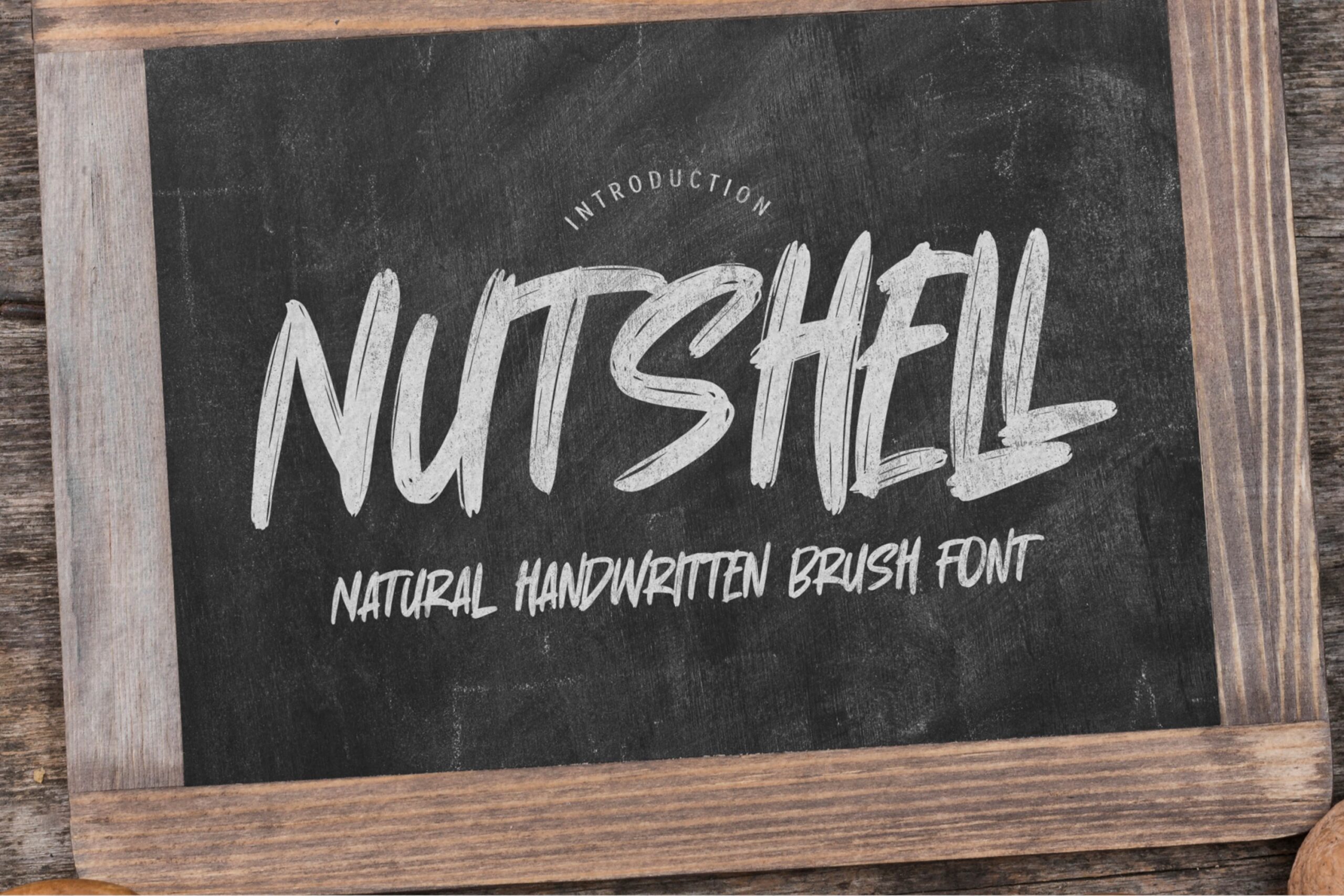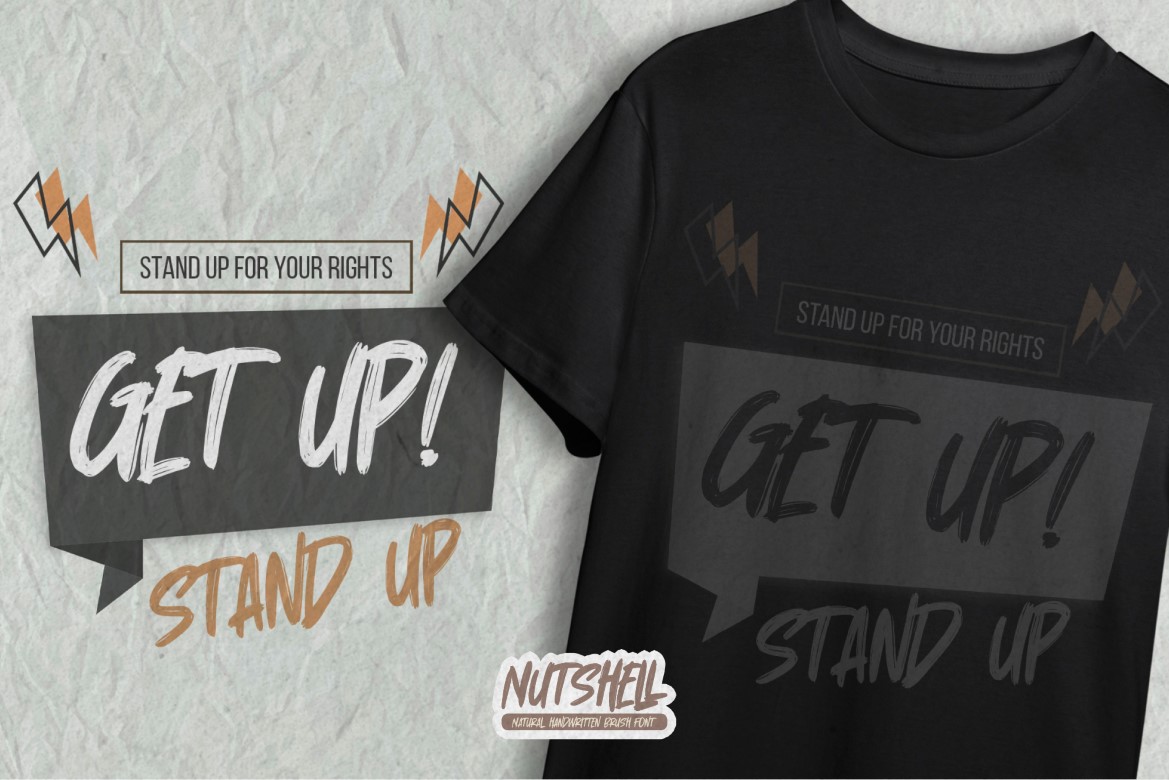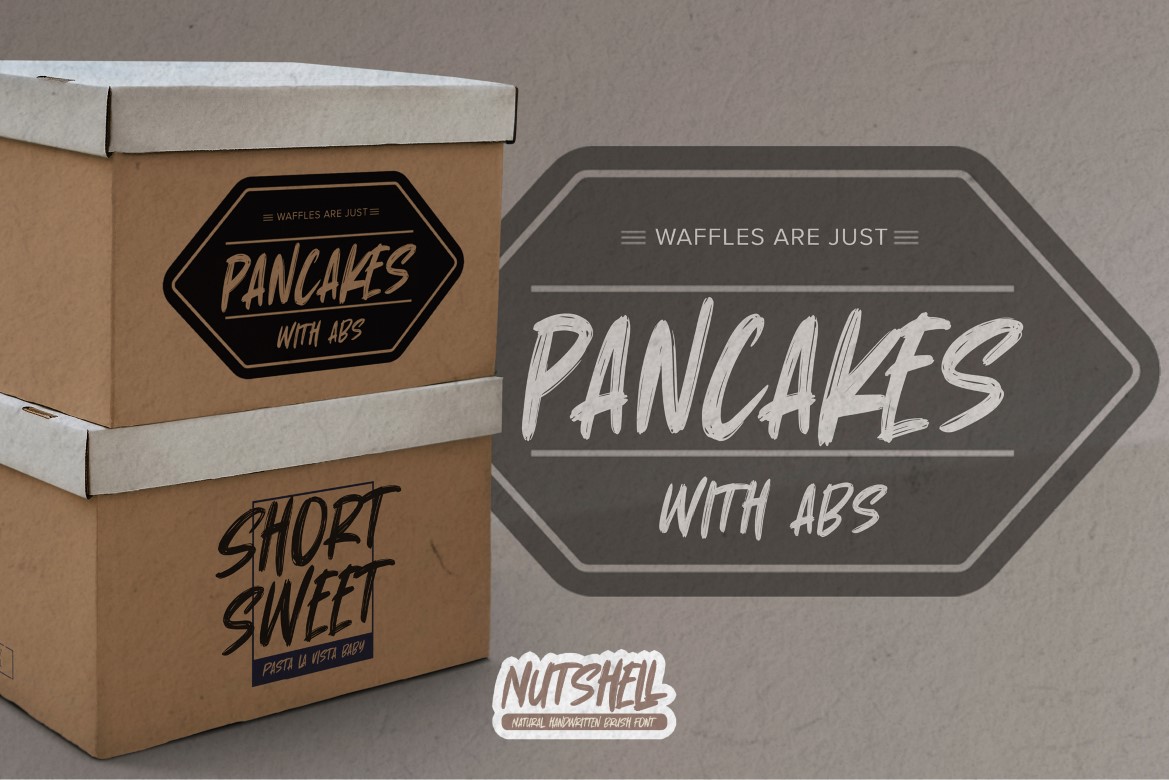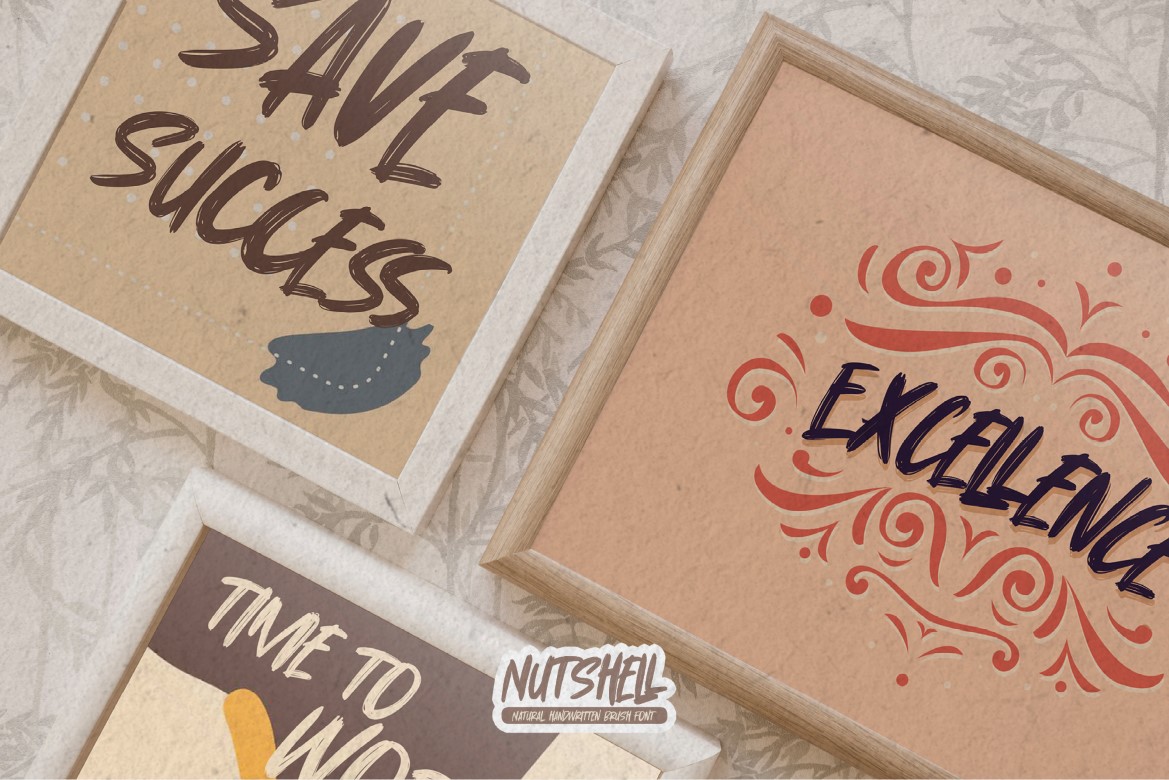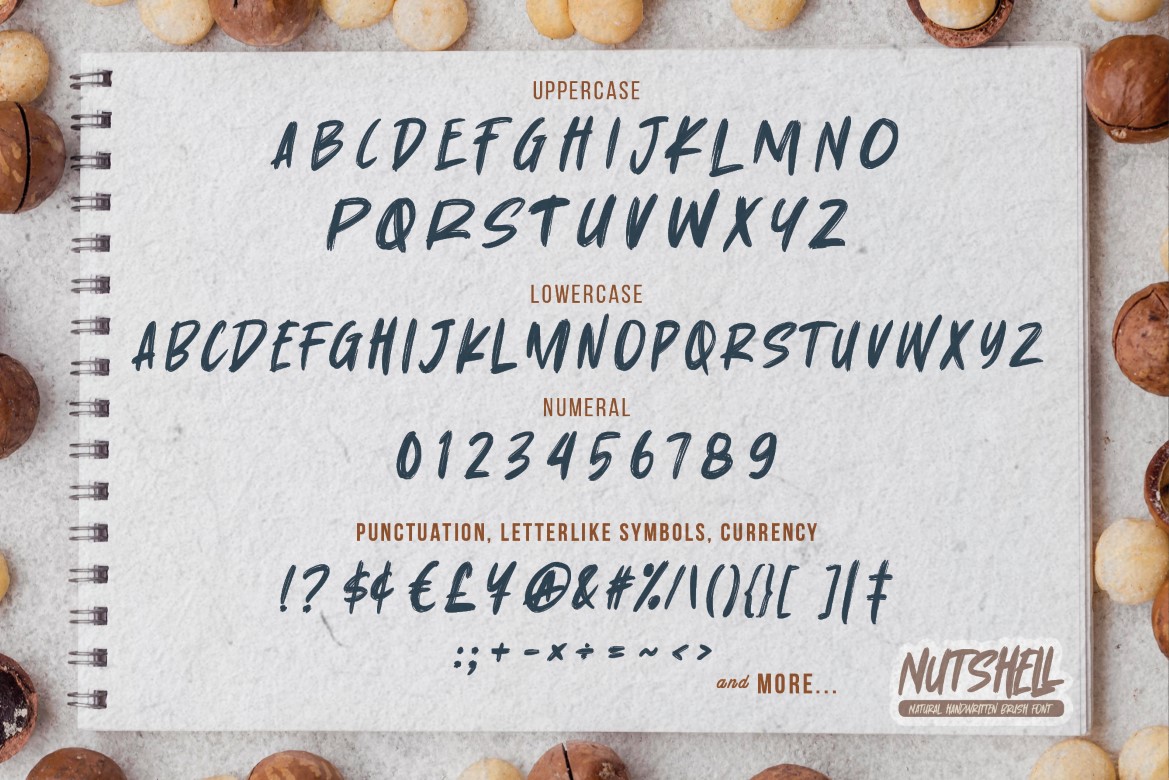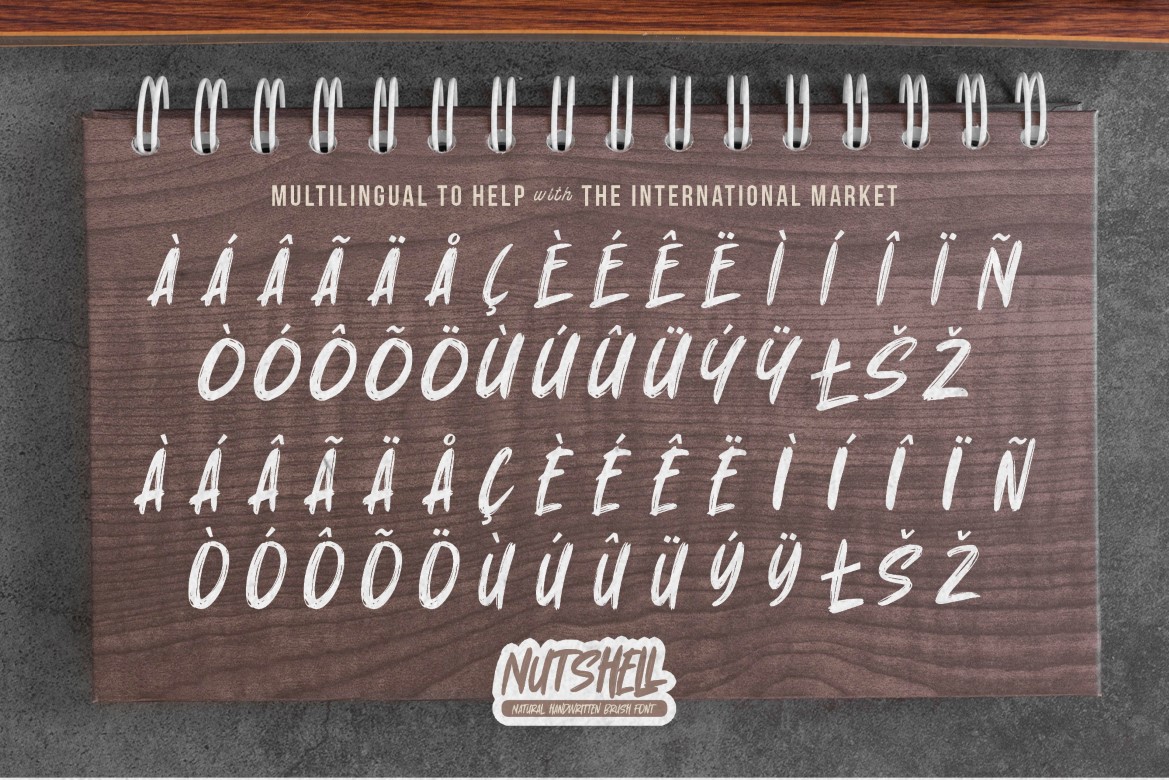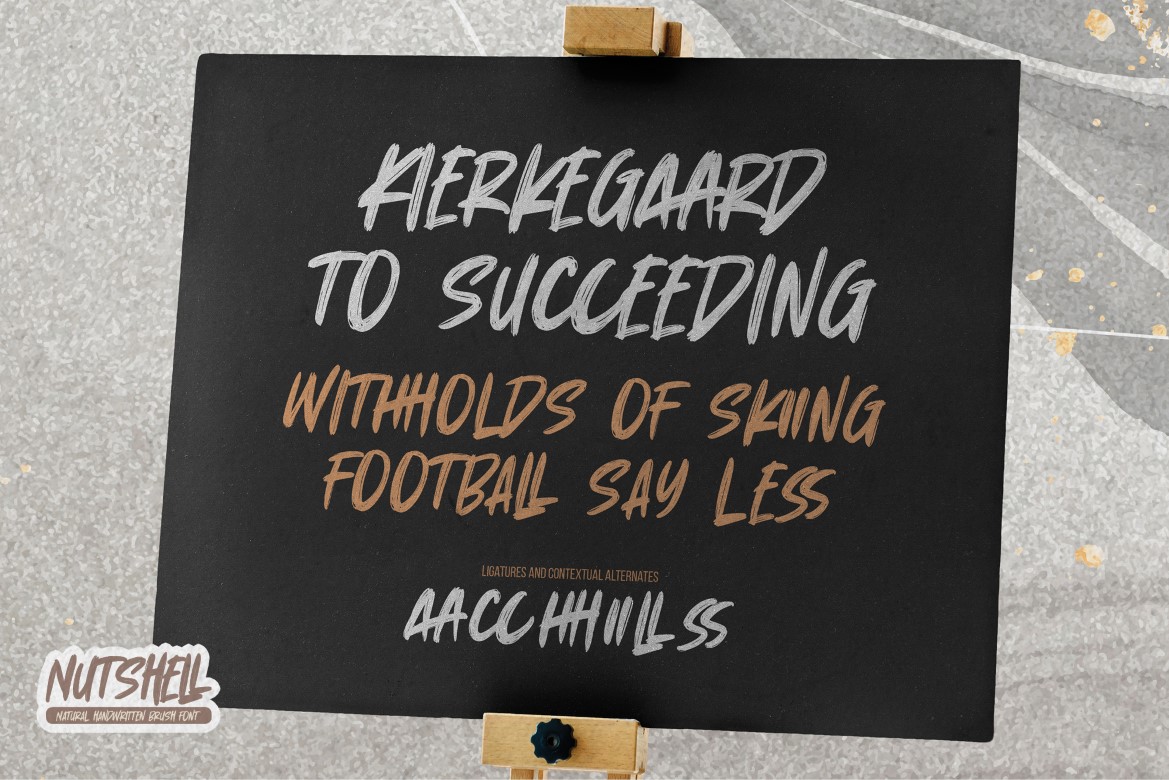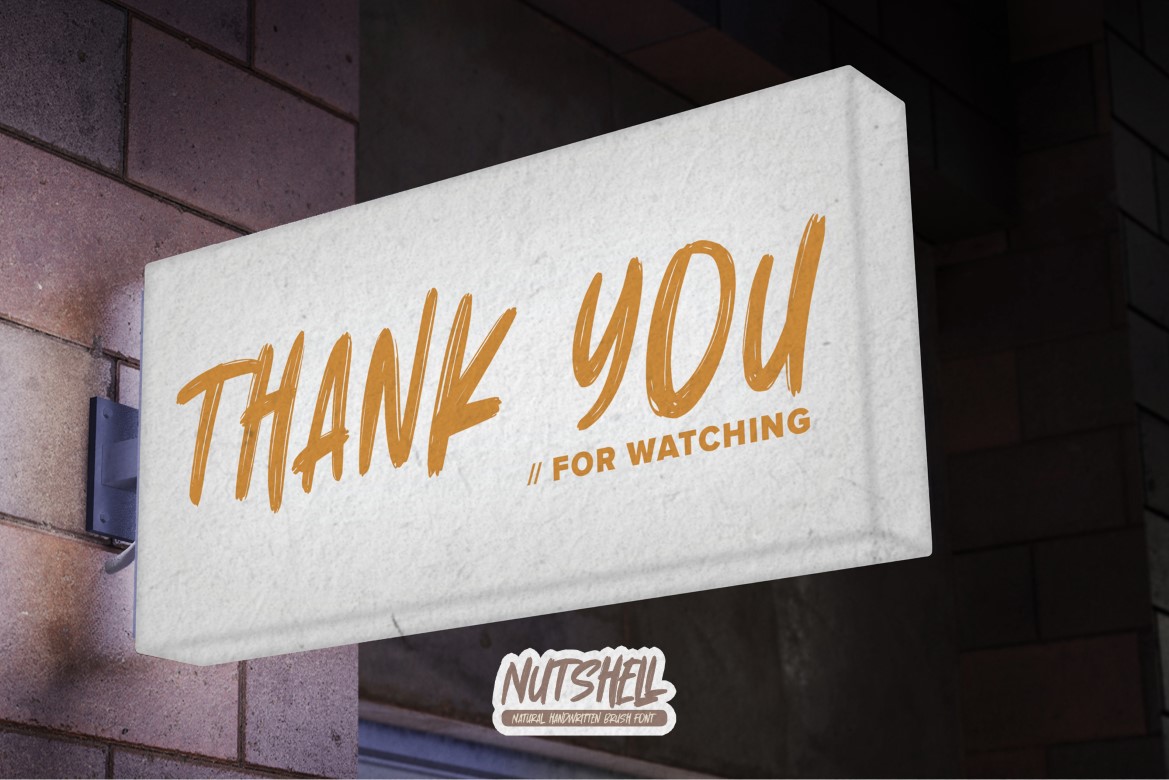
Nutshell – Natural Handwritten Brush Font is an Authentic brush Font that is written casually and quickly.
That is why Nutshell has a authentic, and strong characteristic more natural look.
Nutshell Perfect for designs, branding projects, Logo design,Quotes product packaging and another Project that require cool strong brush font.